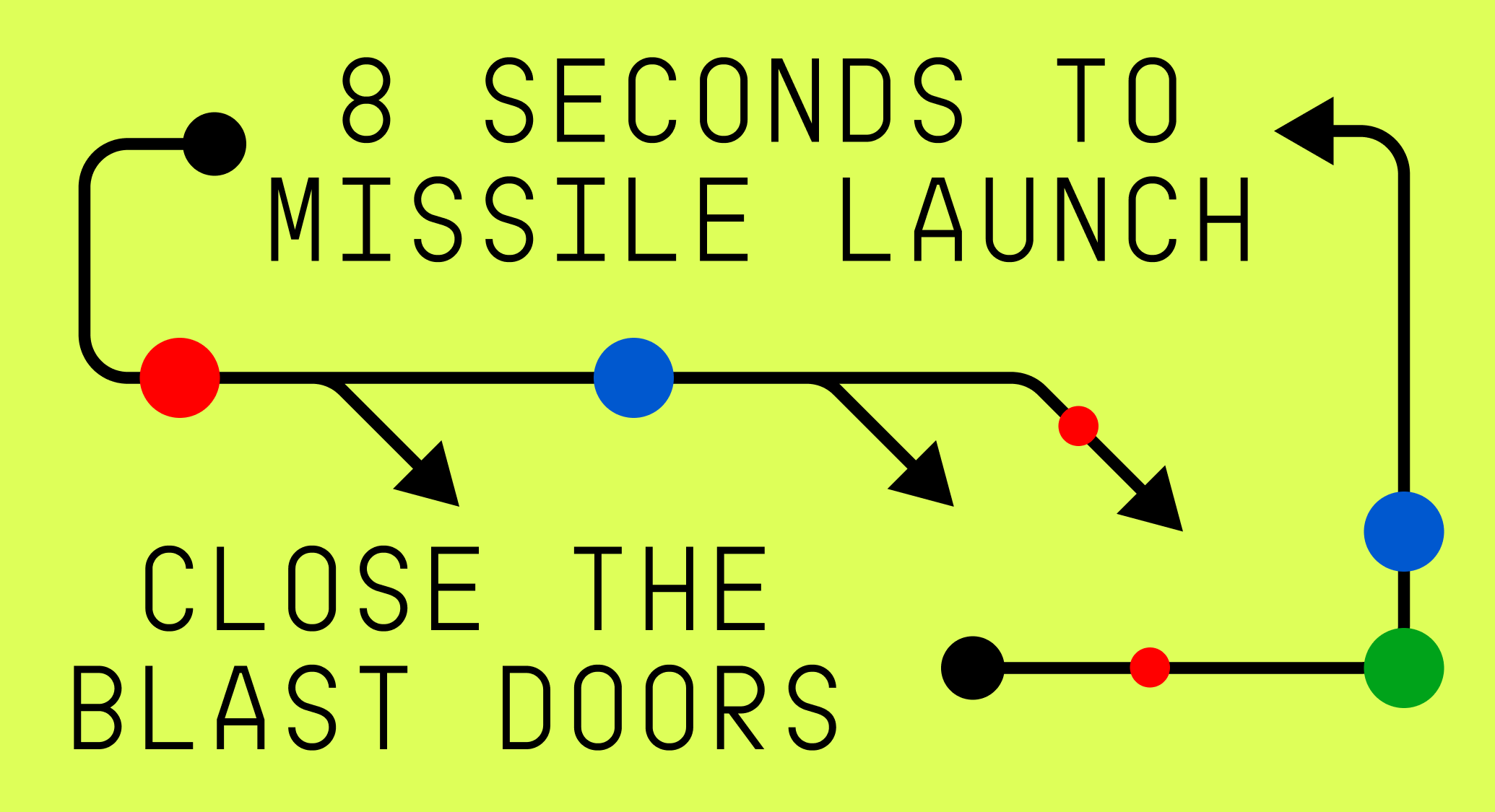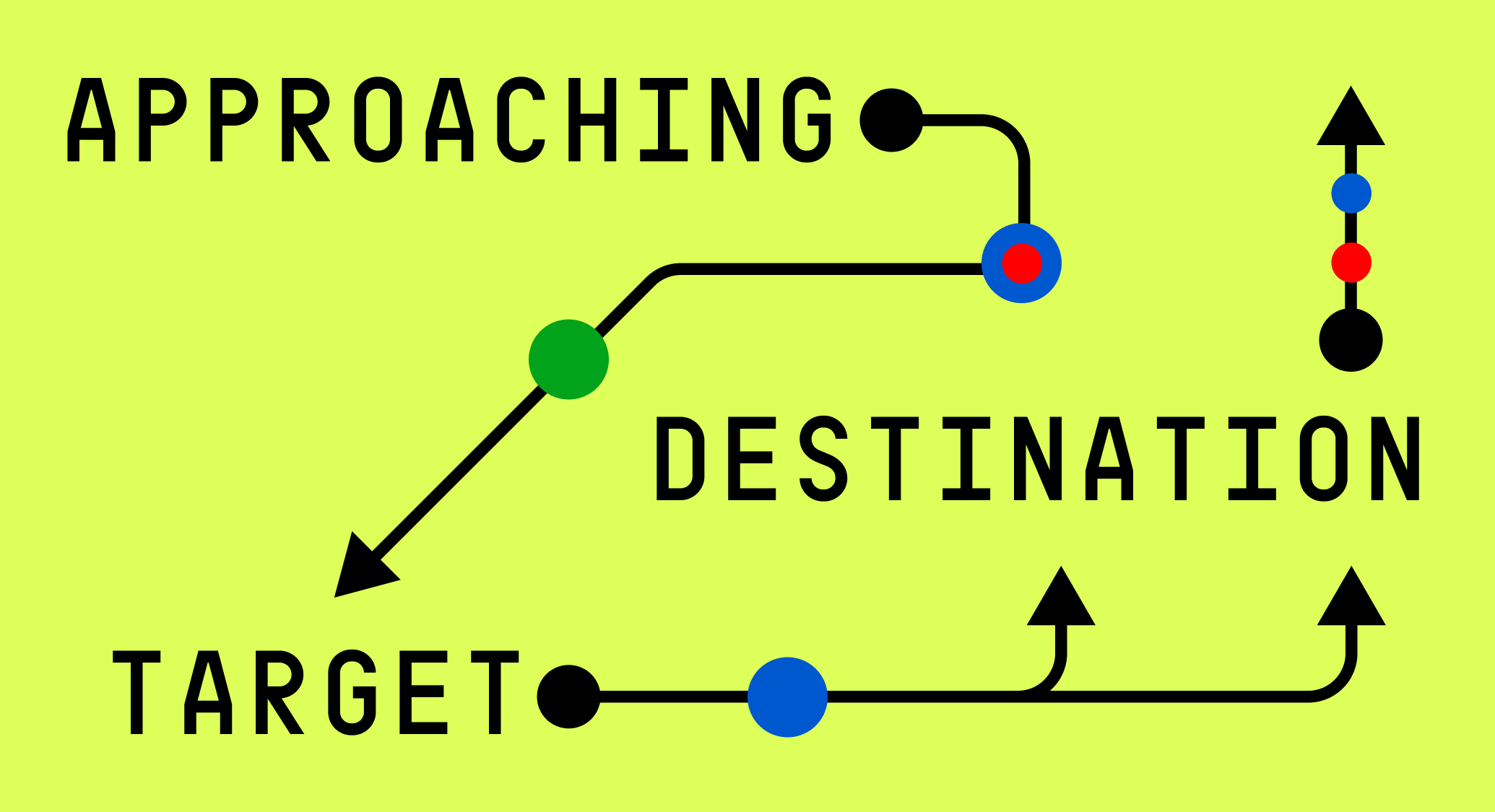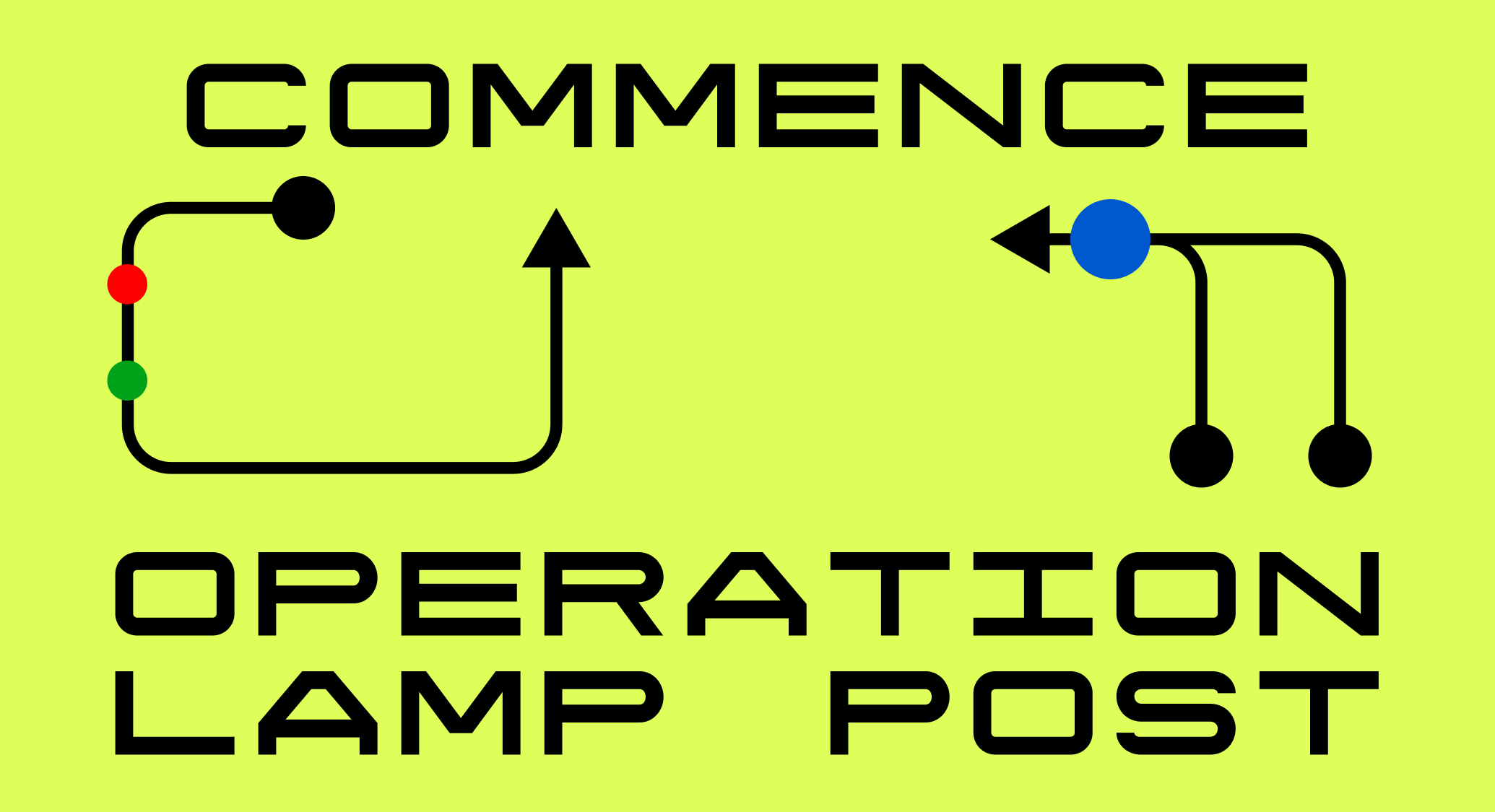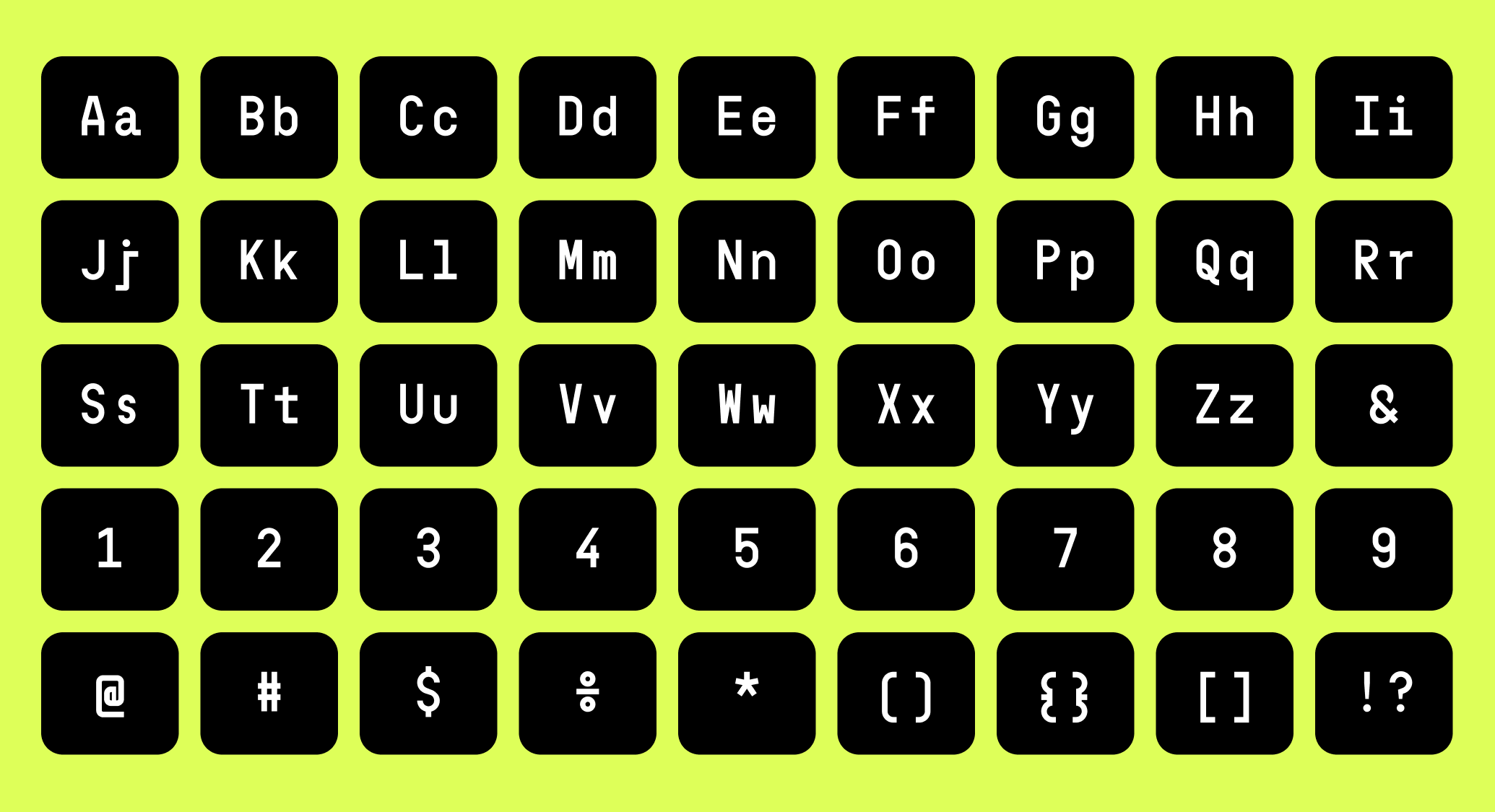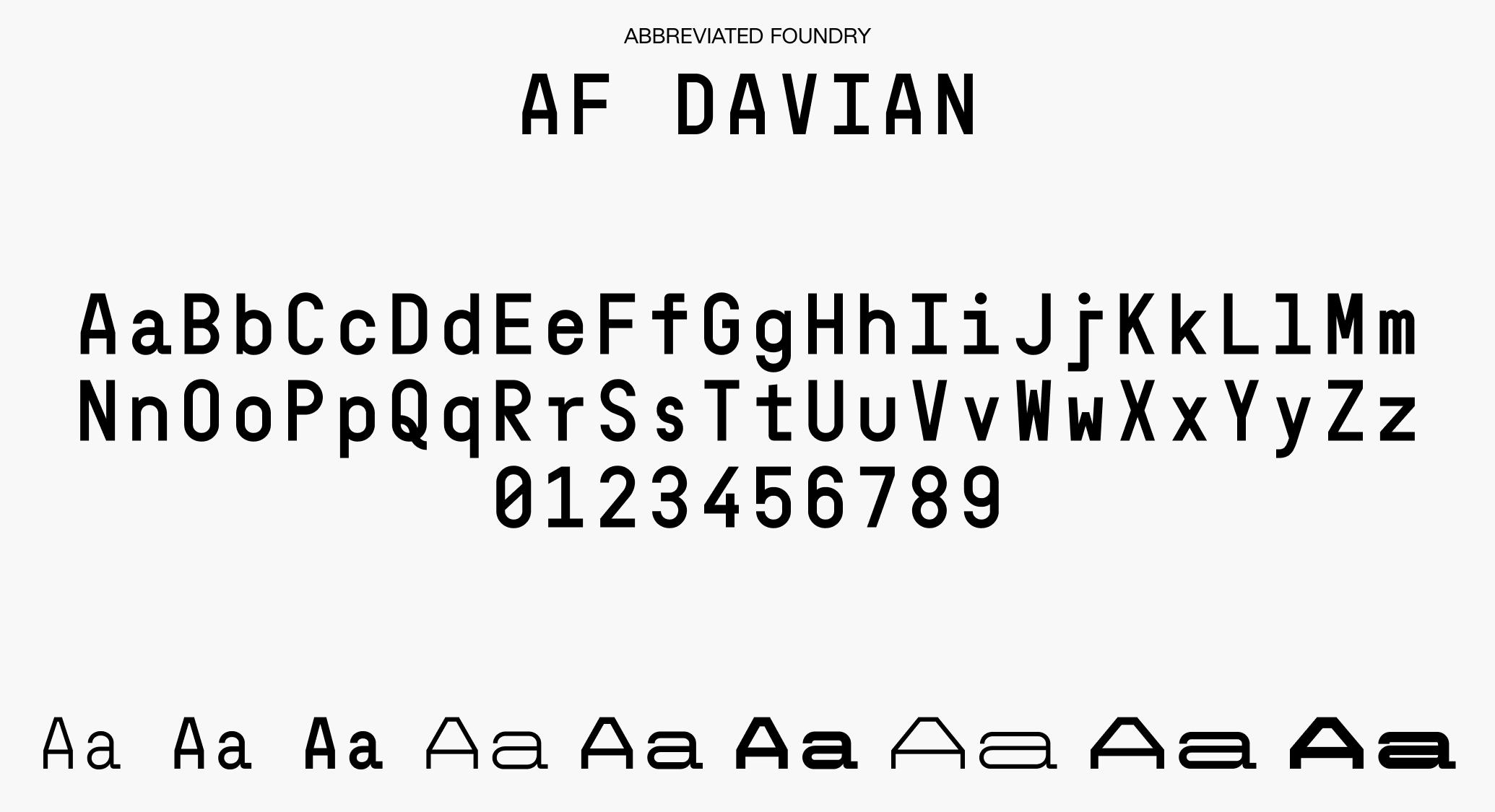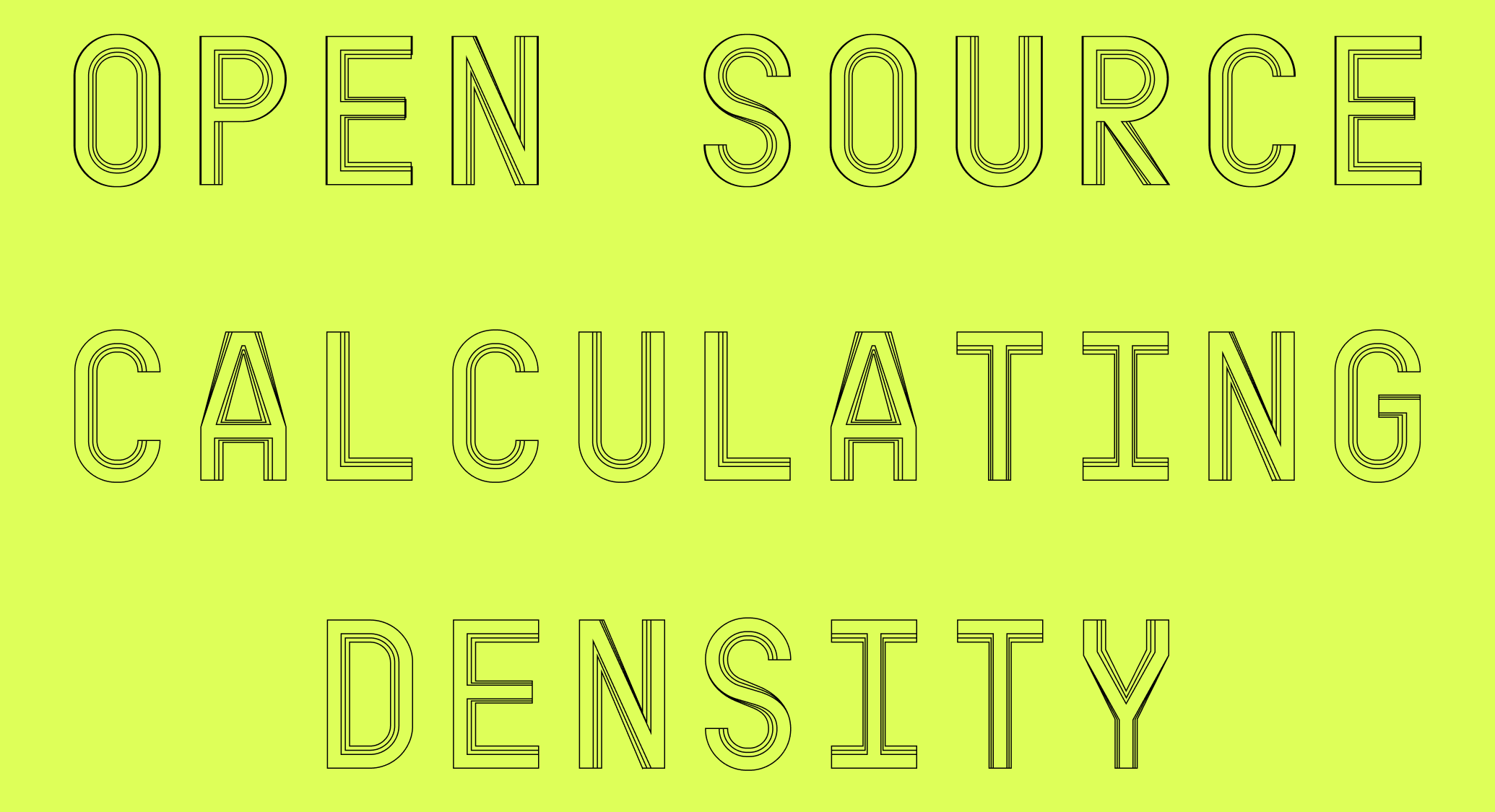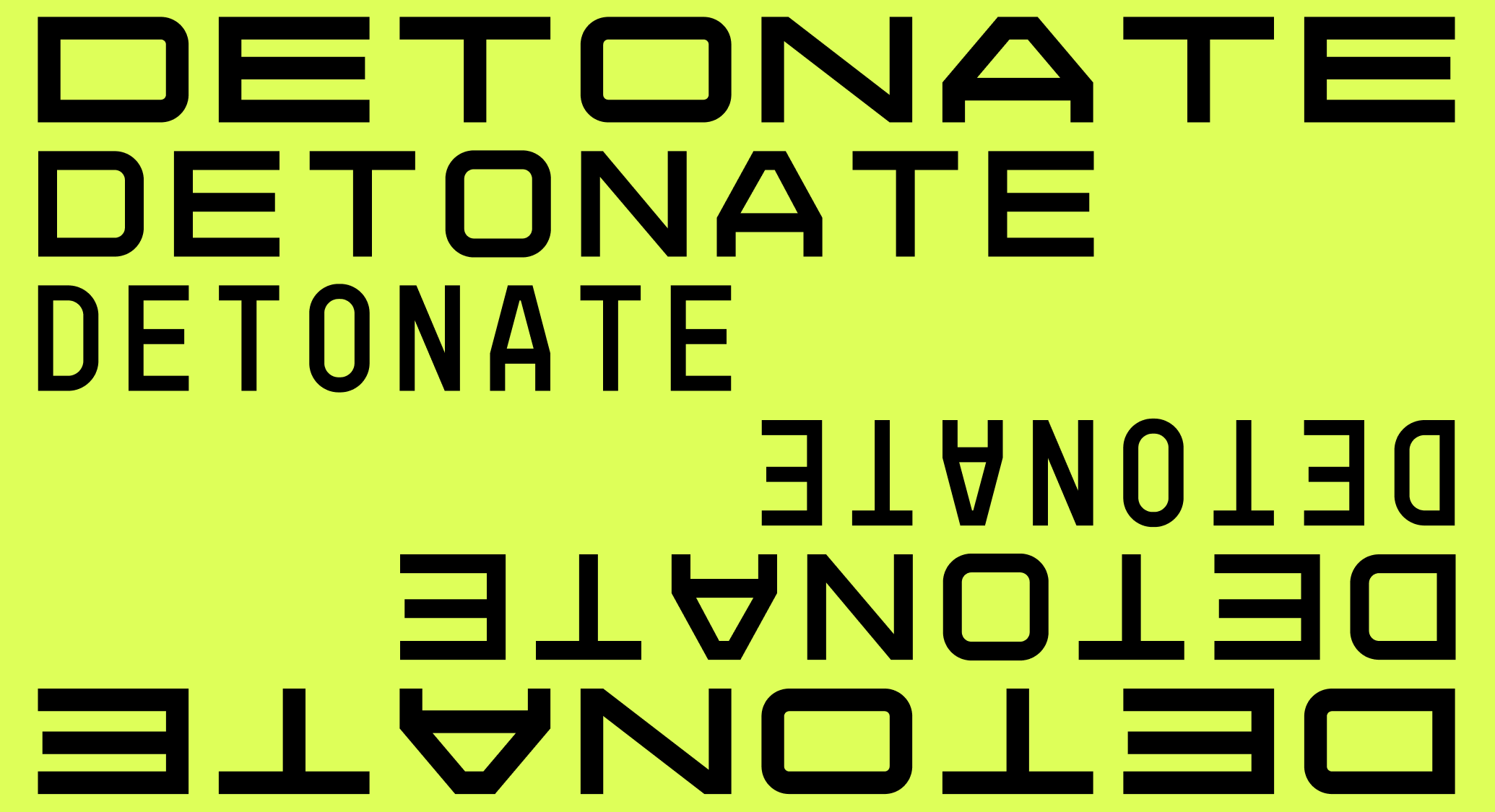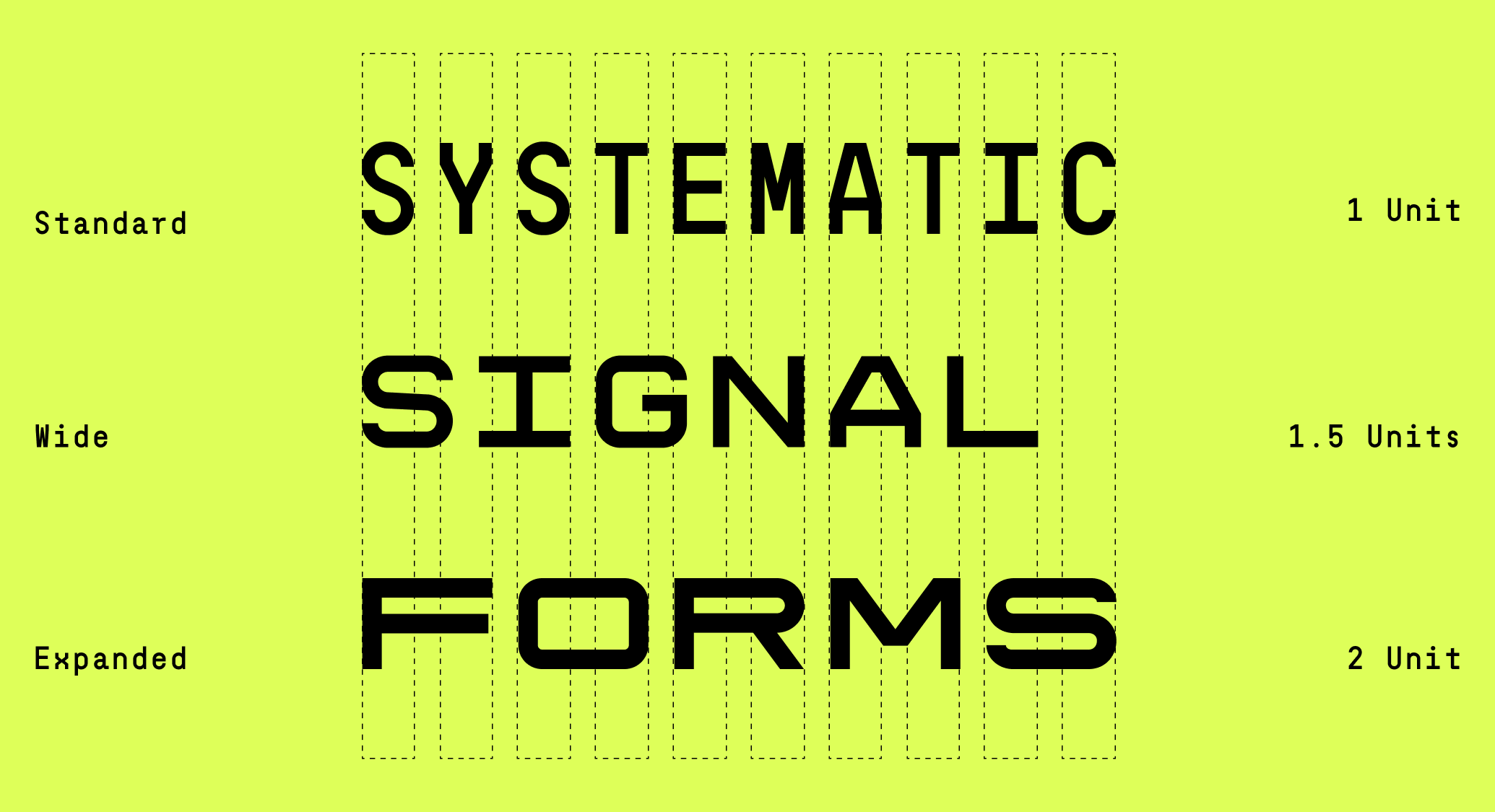
AF Davian
AF Davian is a methodical, mechanical, megalomaniacal monospace that’s always plotting its next move. Davian’s calculating essence derives from a small index of components, primarily 45° arches and straight bars. With three sets of weights and widths — Monospace, Mono-and-a-half-space, and Duospace — you can make every character count. Twice.